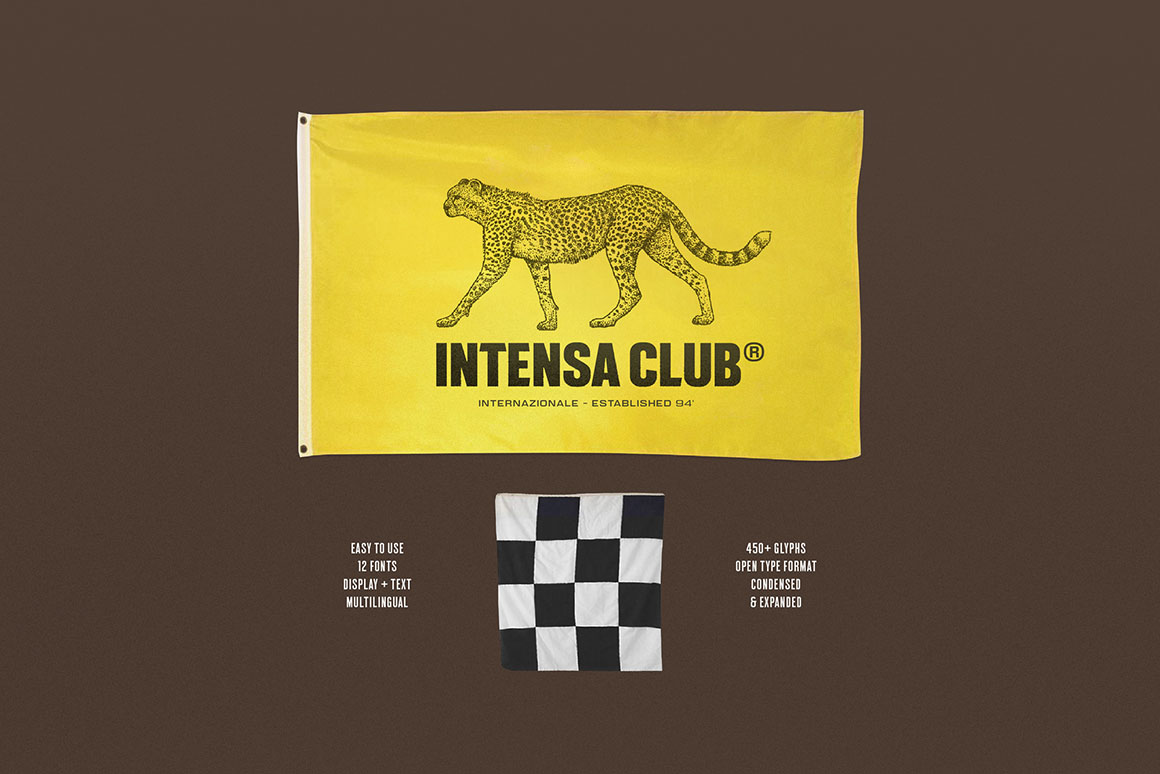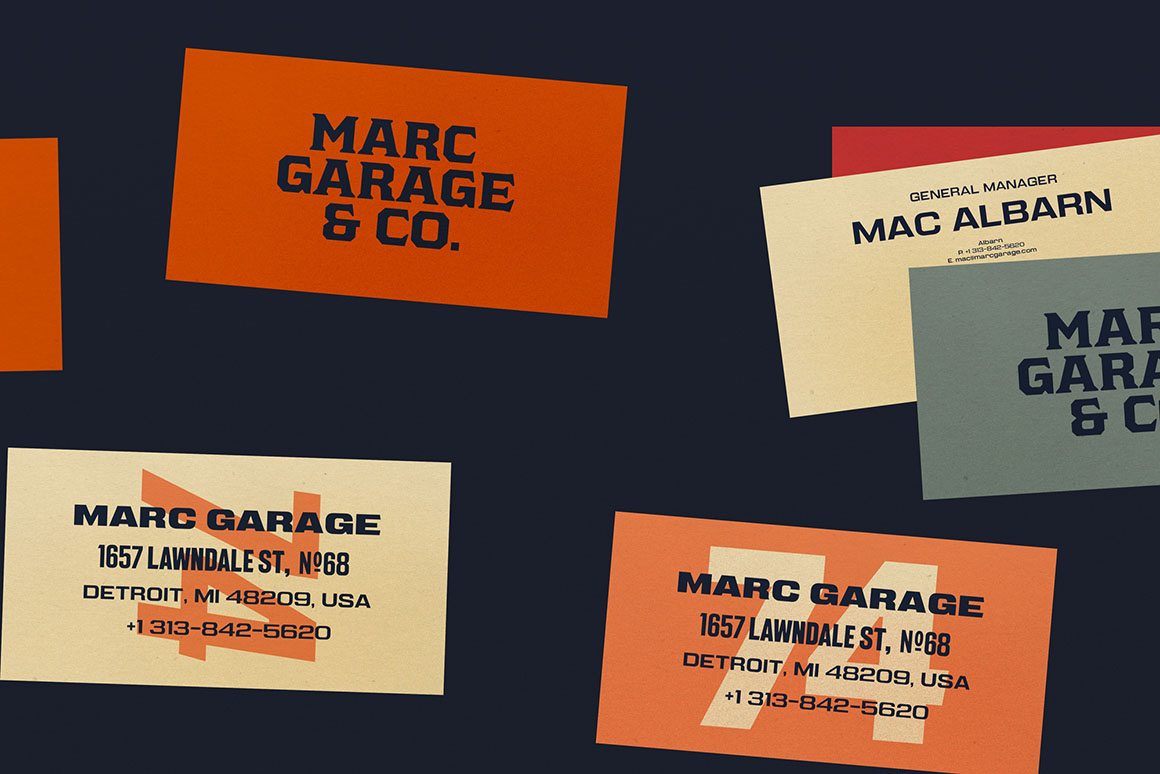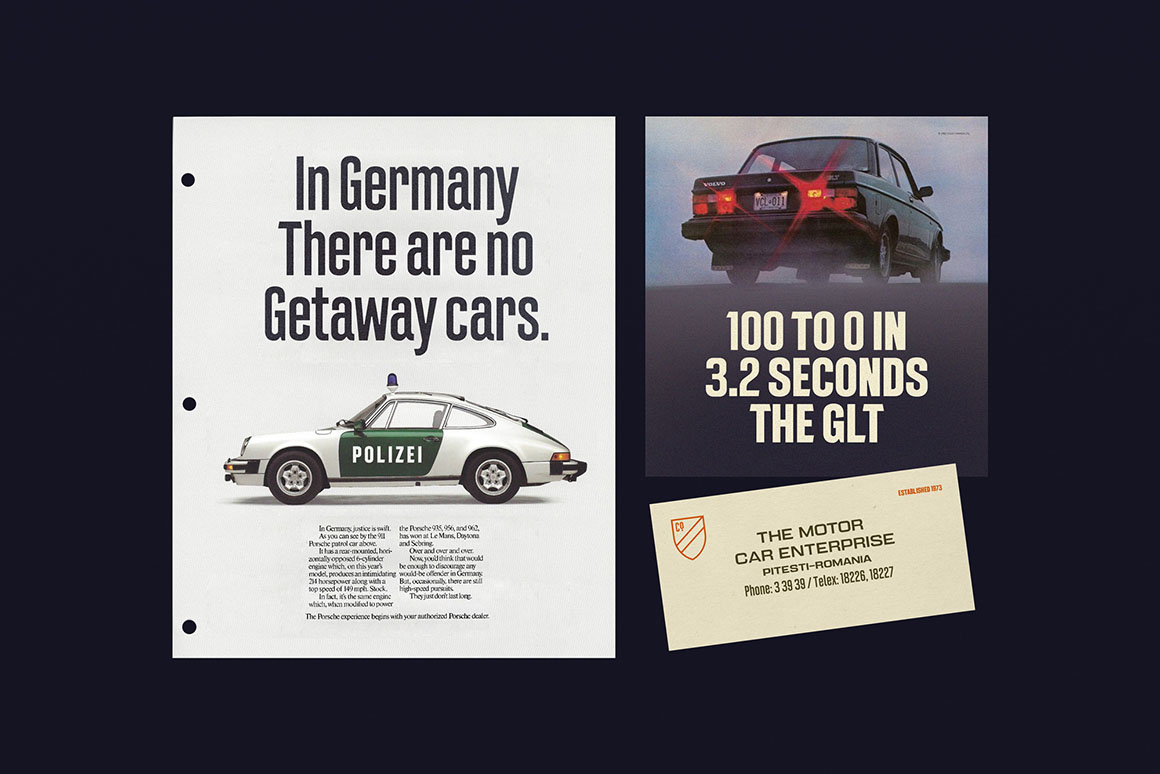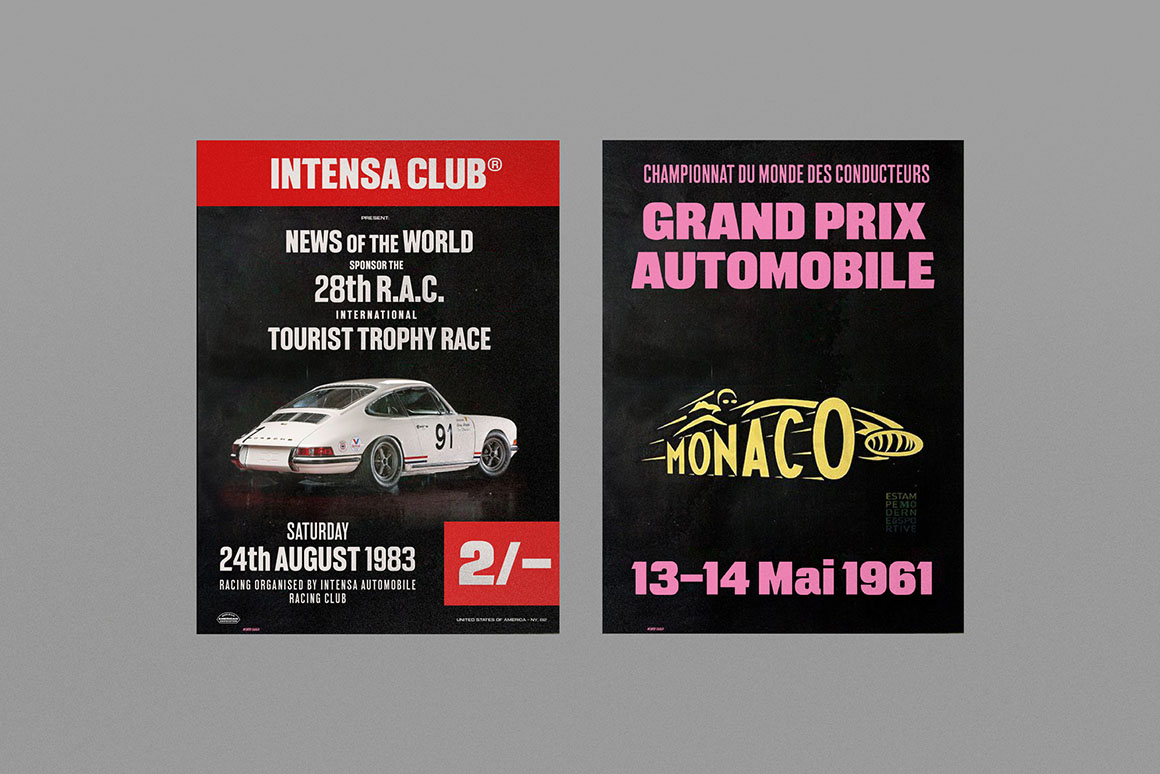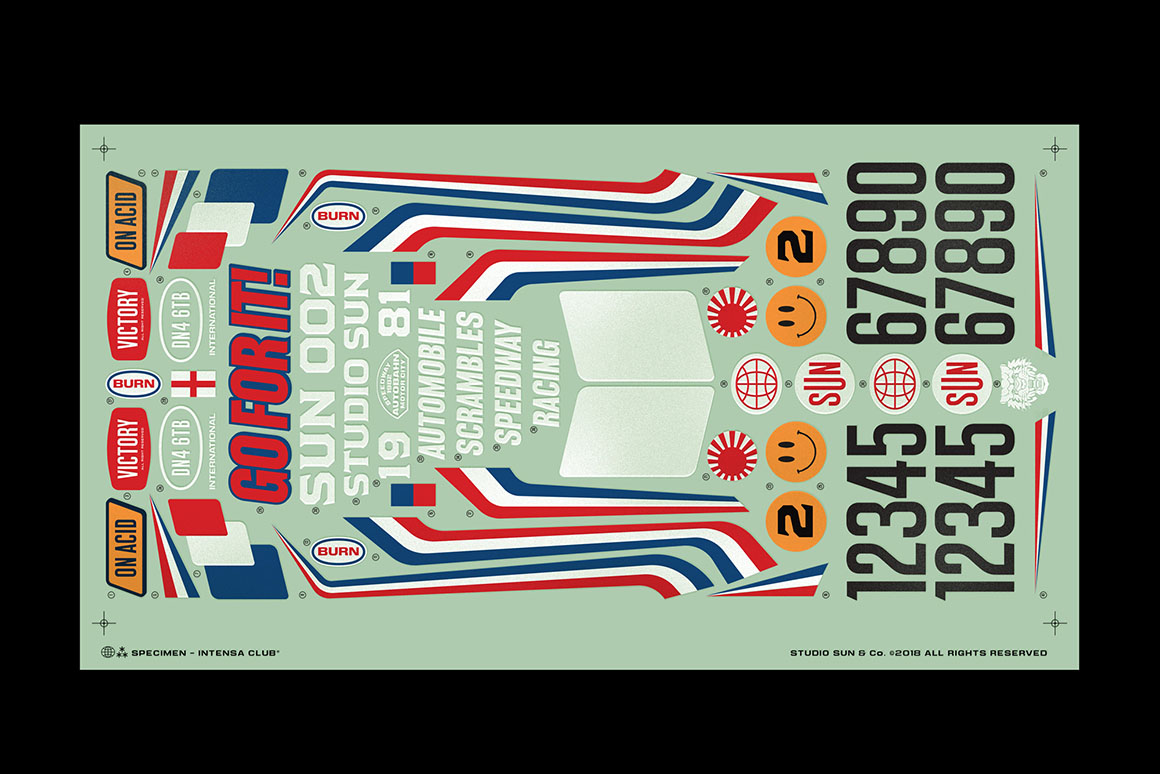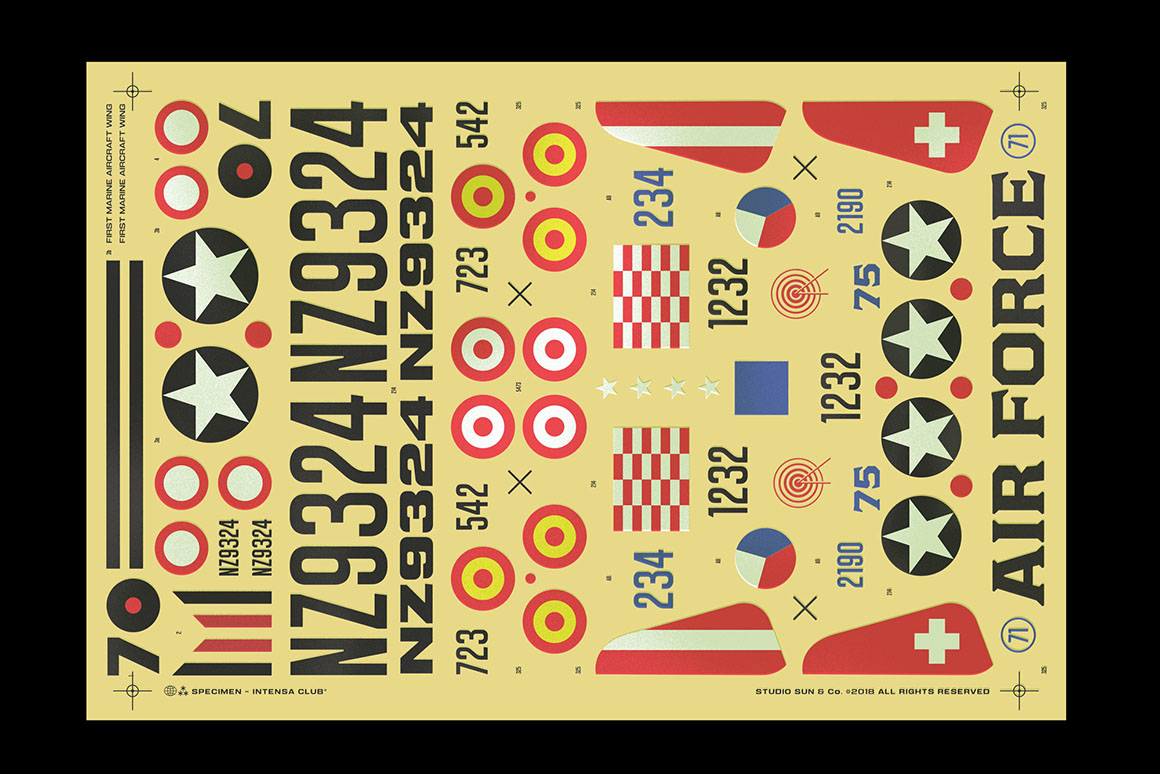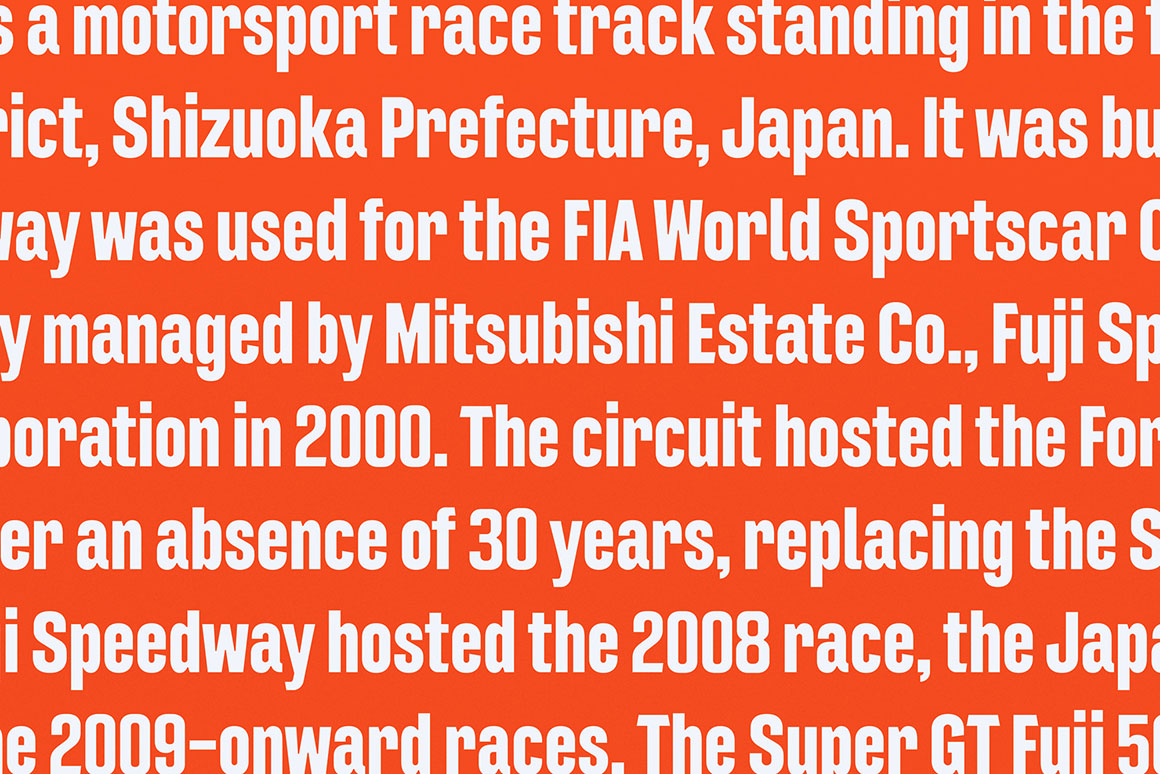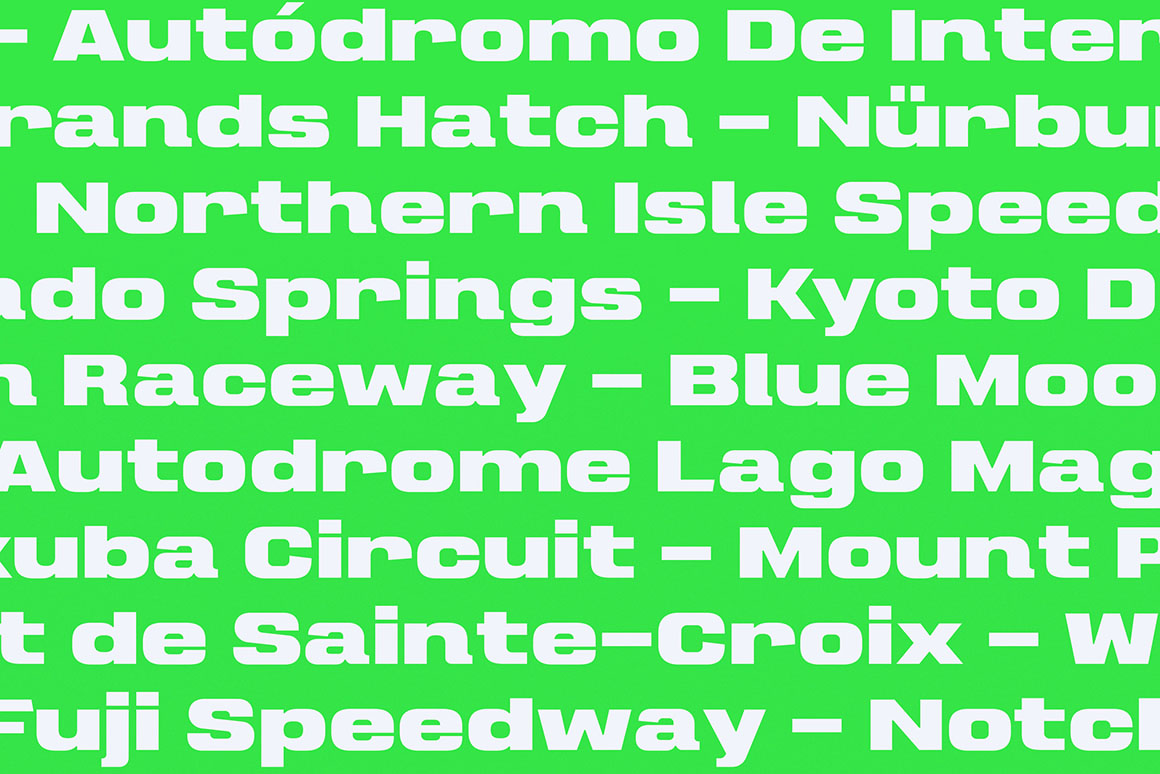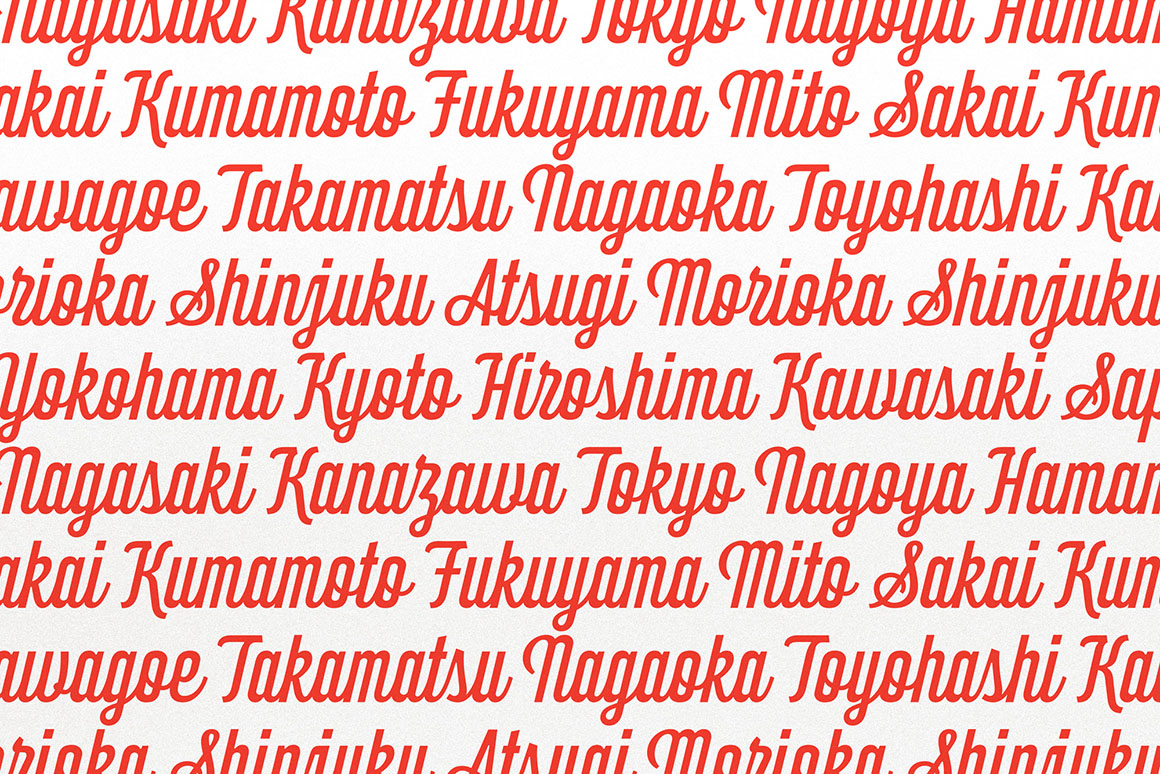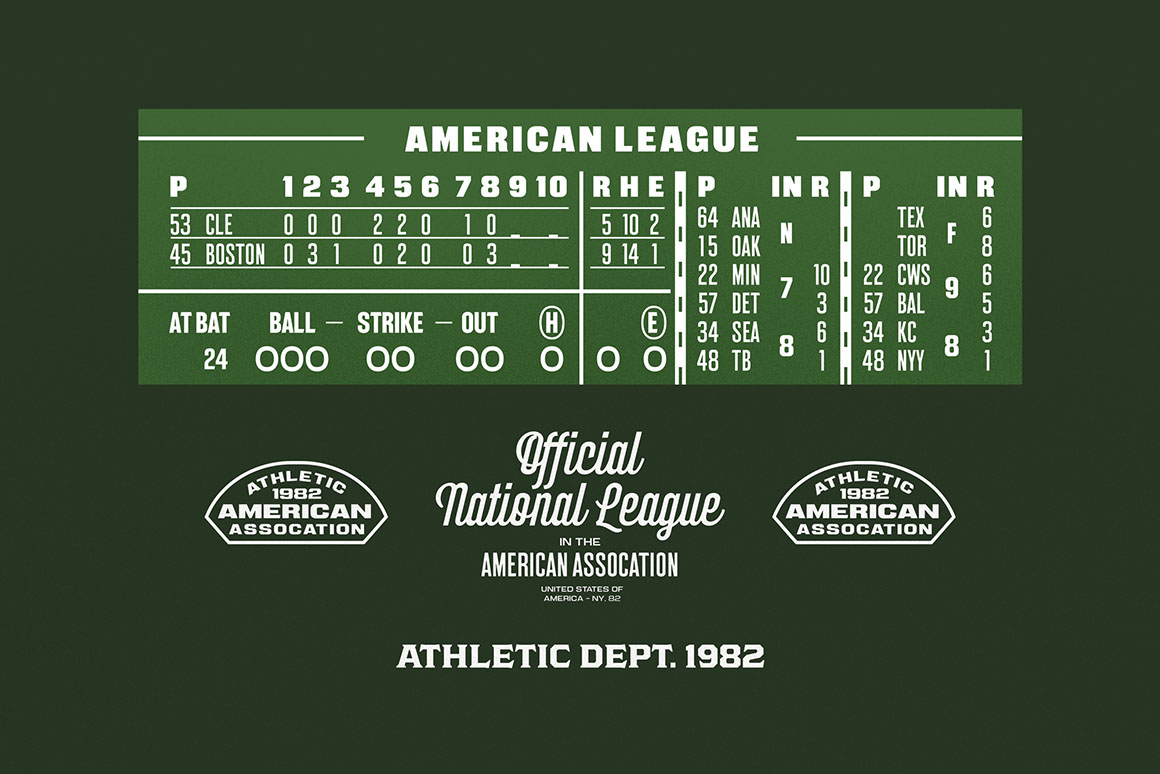
Intensa Font Family
Brand new retro or branding style font family with 15 various fonts! All these fonts are inspired by the revolution of auto racing in the early 60s. This font family is super unique so you can use it for any style of branding project or T-shirt design šŸ˜‰
Intensa Font Family from StudioSunĀ contains 15 display fonts with various style for your new creative projects! Don’t miss this retro & unique font deal šŸ˜‰
• 1960s or racing style font family with 15 various style display fonts for your new projects!
• Great font for all branding designers – you can create cool T-shirts, logos, invitations, posters, headers…
1960s or racing style font family with 15 various style display fonts for your new projects!
OpenType Features including swashes & supports 75+ different languages. Great font for all branding designers – you can create cool T-shirts, logos, invitations, posters, headers…
Condensed
• Intensa Condensed Regular
• Intensa Condensed Bold
• Intensa Condensed Extra Bold
• Intensa Condensed Heavy
• Intensa Condensed Black
Expanded
• Intensa Expanded Light
• Intensa Expanded Regular
• Intensa Expanded Medium
• Intensa Expanded Bold
• Intensa Expanded Extra Bold
• Intensa Expanded Black
Poster
• Intensa Poster
• Intensa College
• Intensa Script
• Intensa Speed (Italic)
• 1960s or racing style font family with 15 various style display fonts for your new projects!